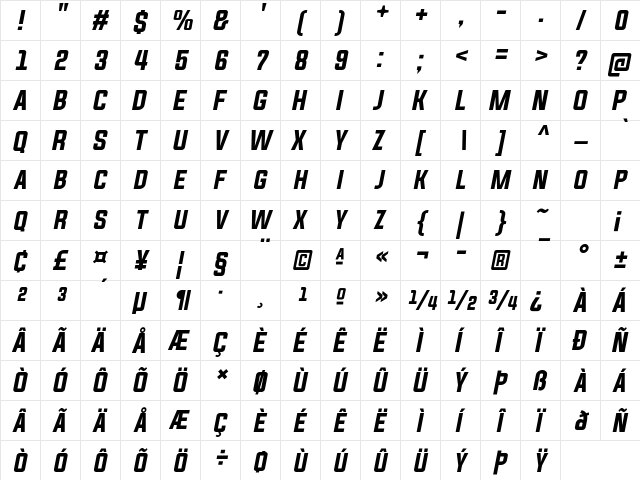
Evogria Italic
| Designer | Situjuh Nazara |
Design Context for Evogria Typeface
Evogria takes a measured approach to typography — its balanced proportions and neutral character make it a reliable workhorse for both digital and print work. The slanted form adds forward momentum and visual energy.
Pro Tip: Use Evogria for emphasis, pull quotes, and subheadings where its slanted energy can add rhythm to the layout.